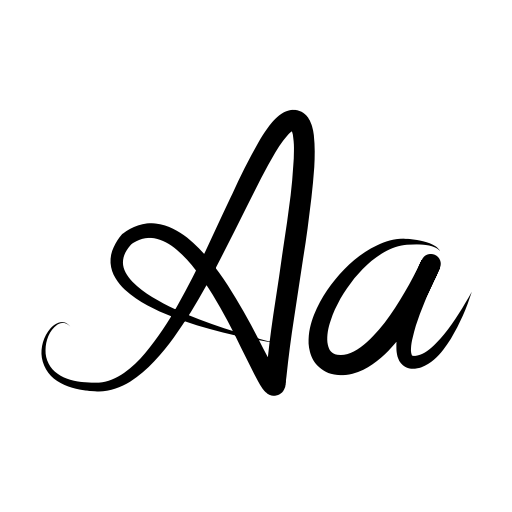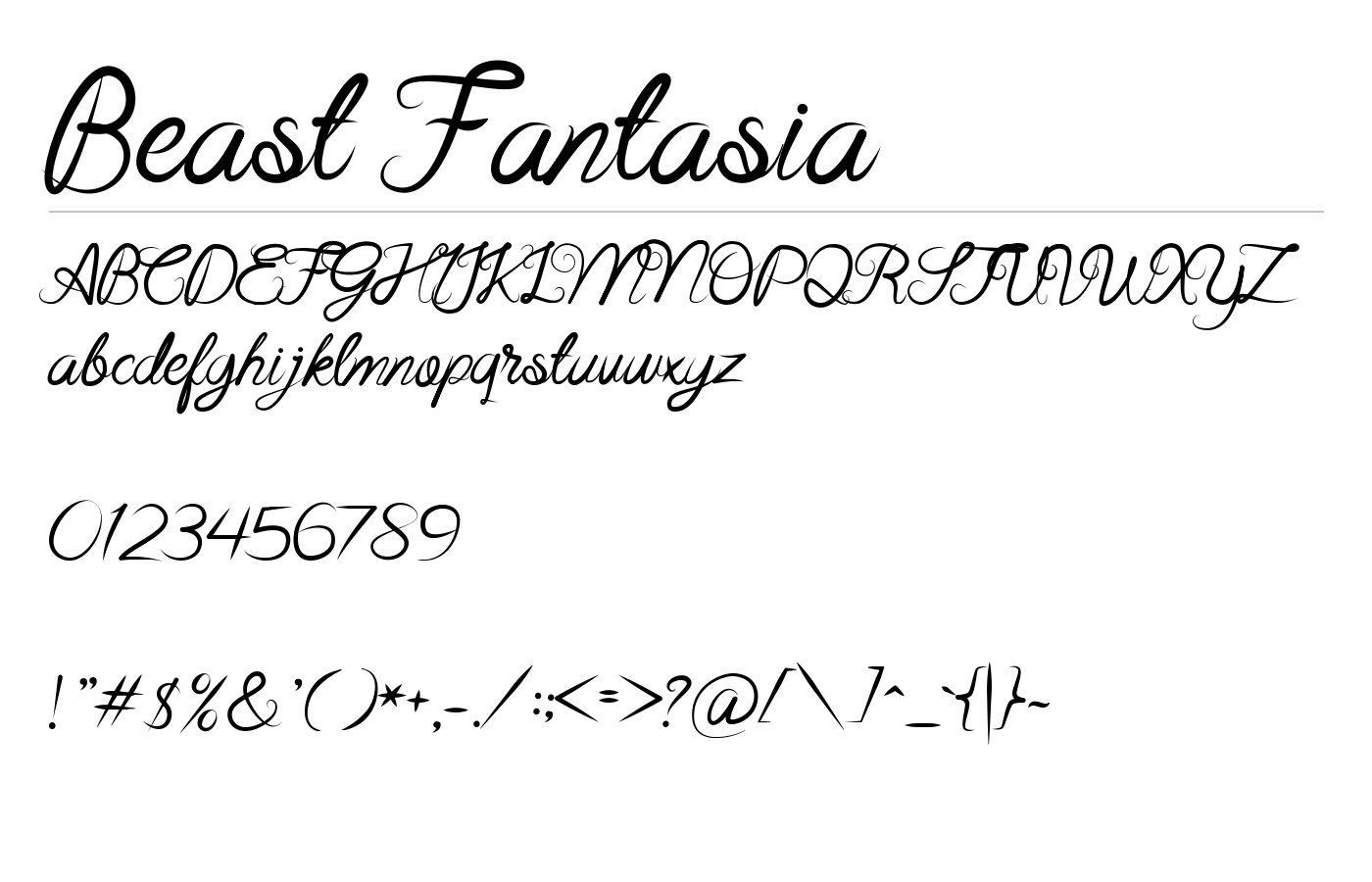
Beast Fantasia is a delicate and elegant script font featuring fine, flowing strokes and intricate swashes that convey a sense of sophistication and charm. Its narrow, slightly condensed letterforms with high contrast between thick and thin lines make it ideal for decorative use in invitations, greeting cards, and branding that aims for a refined and graceful look. This font works best for headlines or short phrases where its ornamental style can shine without sacrificing readability.
Beast Fantasia Font
About Beast Fantasia Font